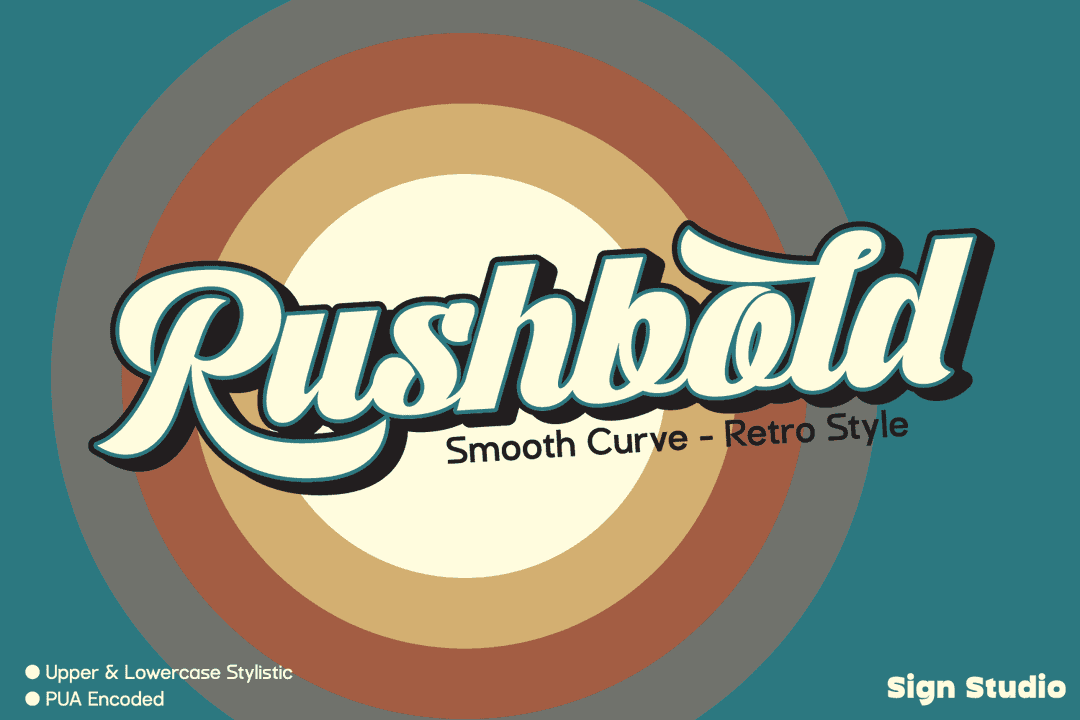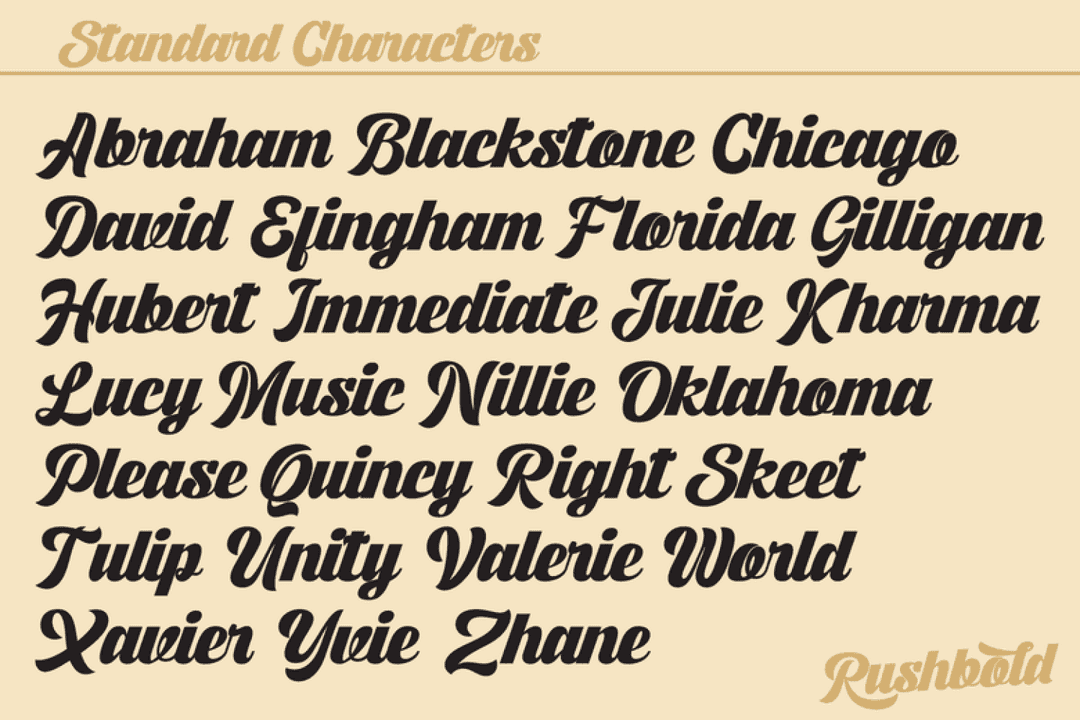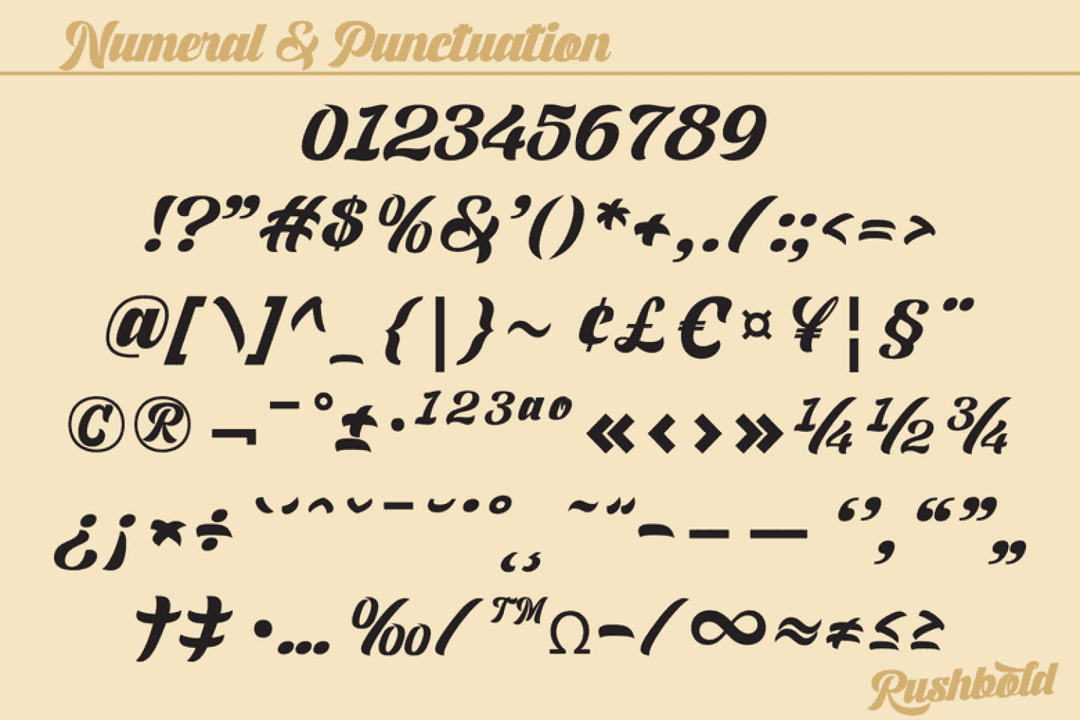
Discover Rushbold Font, part of the Retro Script collection—a versatile and unique font perfect for adding a personal touch to your projects. Download it for free and enjoy crafting designs with style, from invitations to social media posts. This font is available exclusively for personal use, giving you the freedom to create without limits. Unlock your creativity with Rushbold Font today!
Rushbold is an elegant and bold retro script font inspired by brush styles of yesteryear with its large body. This font will help bring an inviting vintage-retro fun feel and features two stylistic sets (Uppercase and Lowercase) plus alternate characters for larger prints that still look great.